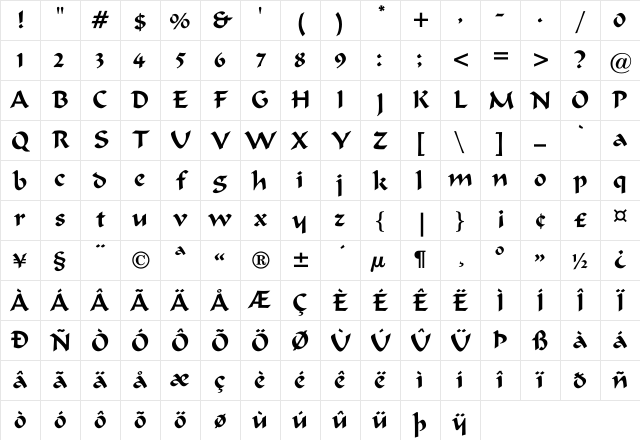
FormalScript421BT-Regular Regular
Design Context for FormalScript421BT-Regular
FormalScript421BT-Regular flows with the natural rhythm of handwritten lettering, making it ideal for designs that call for warmth and personal expression.
Font Pairing: Combine FormalScript421BT-Regular with a simple geometric sans for maximum contrast - the tension between flowing curves and clean structure is a classic typographic pairing.
Pro Tip: Use FormalScript421BT-Regular for short runs of text - names, titles, or taglines. Extended body copy in script faces tires the eye quickly.